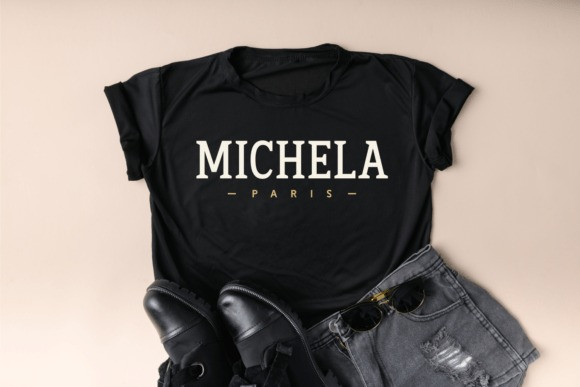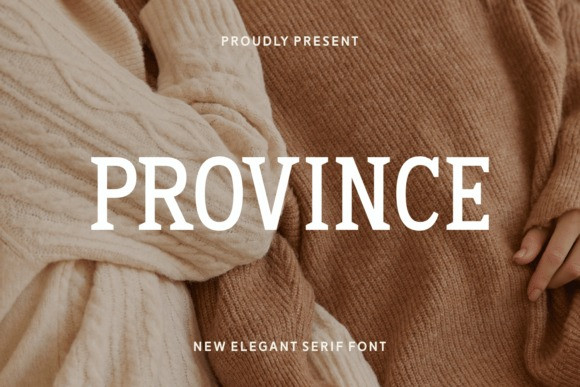
Province Font
Province Font a new elegant serif font. This comfortable and rustic aesthetic perfectly complements the font’s classic and grounded character, evoking the feeling of autumn and winter even as summer is in full swing.